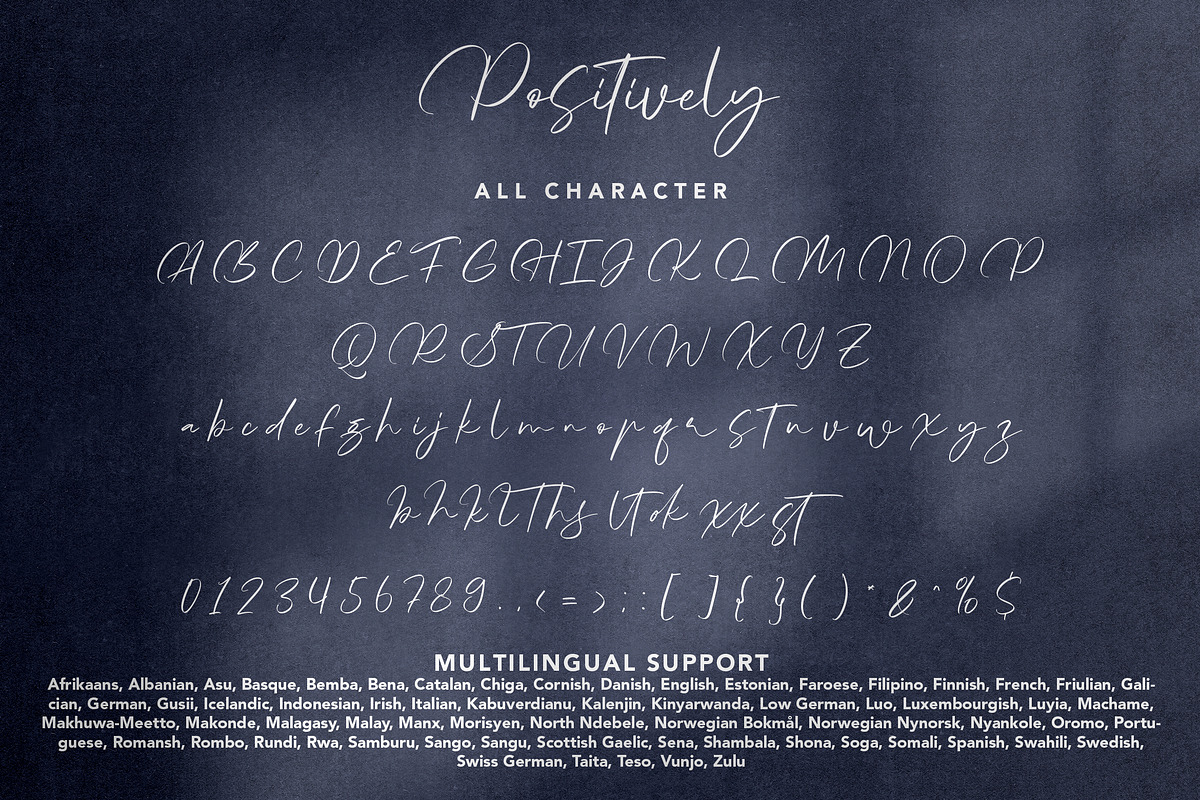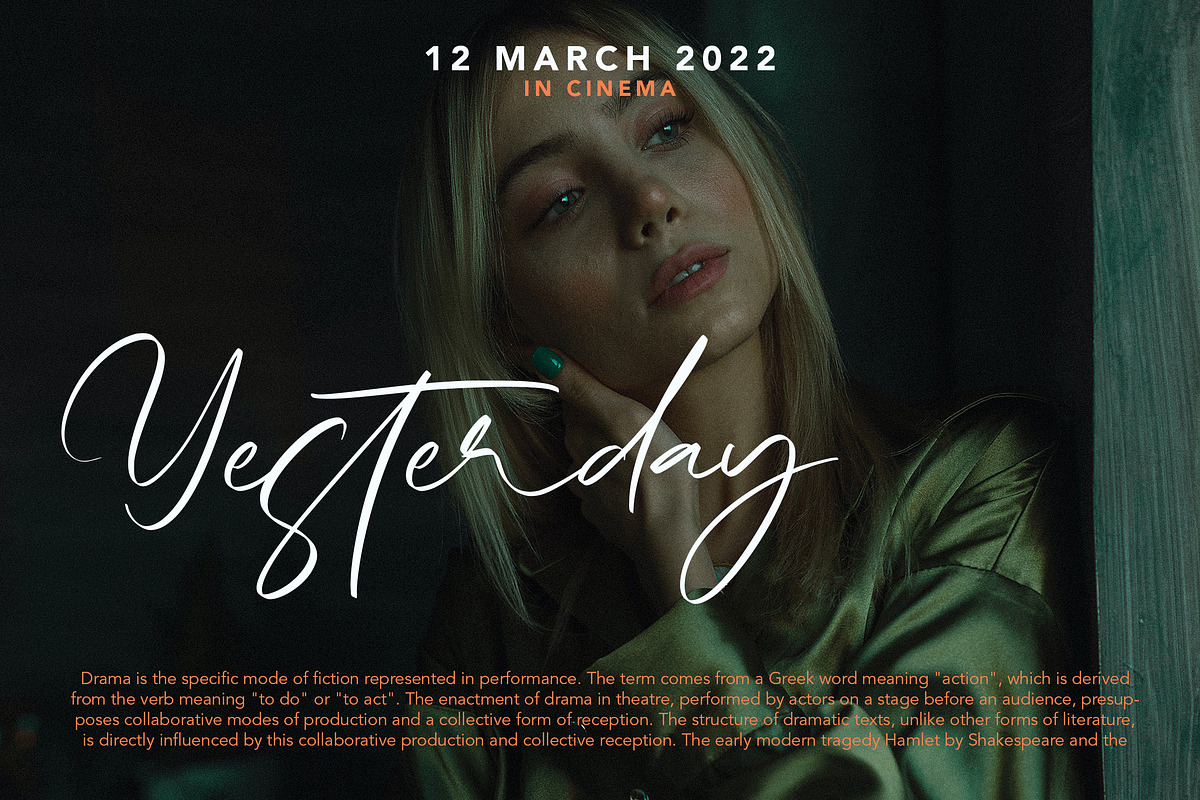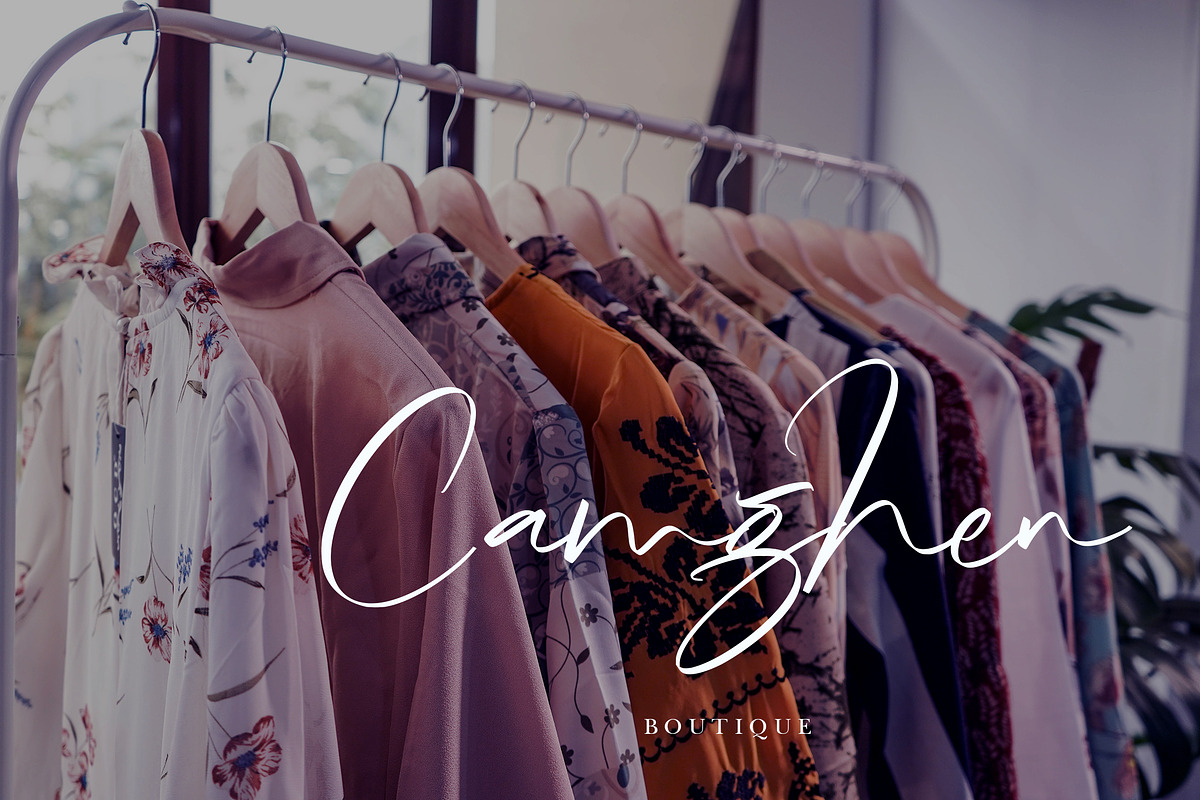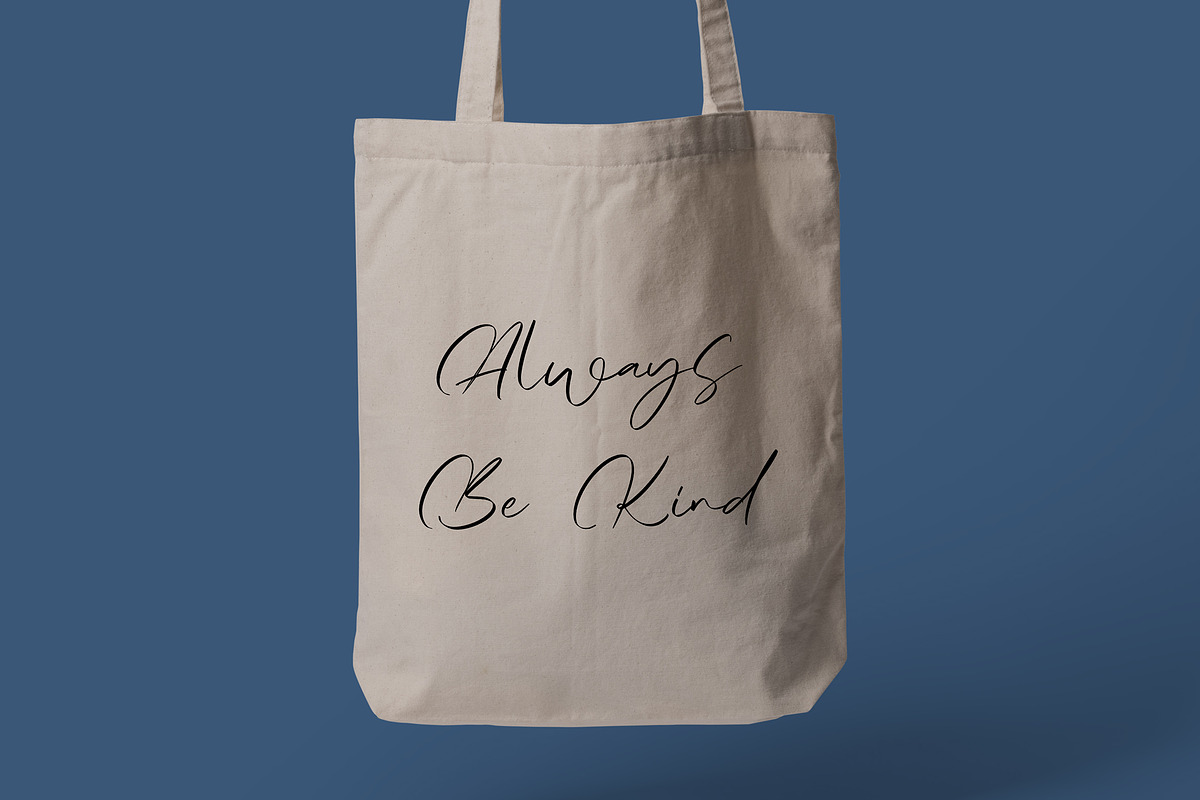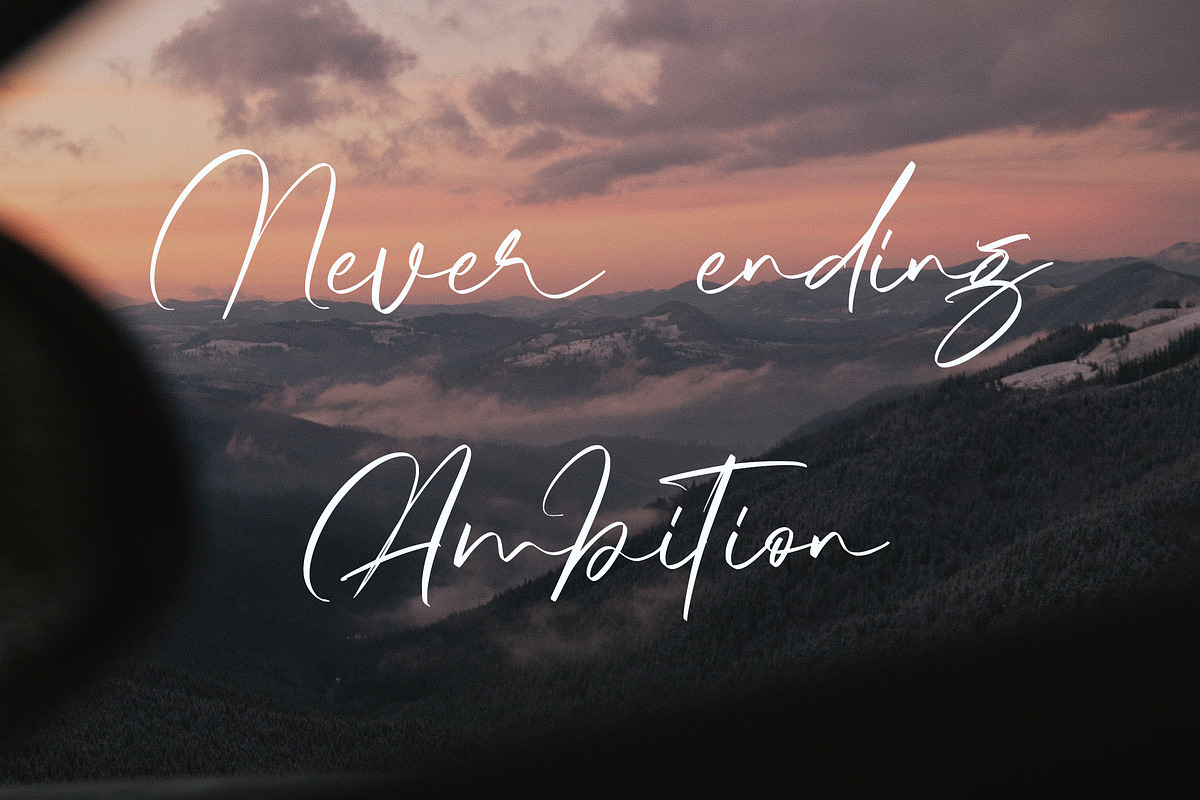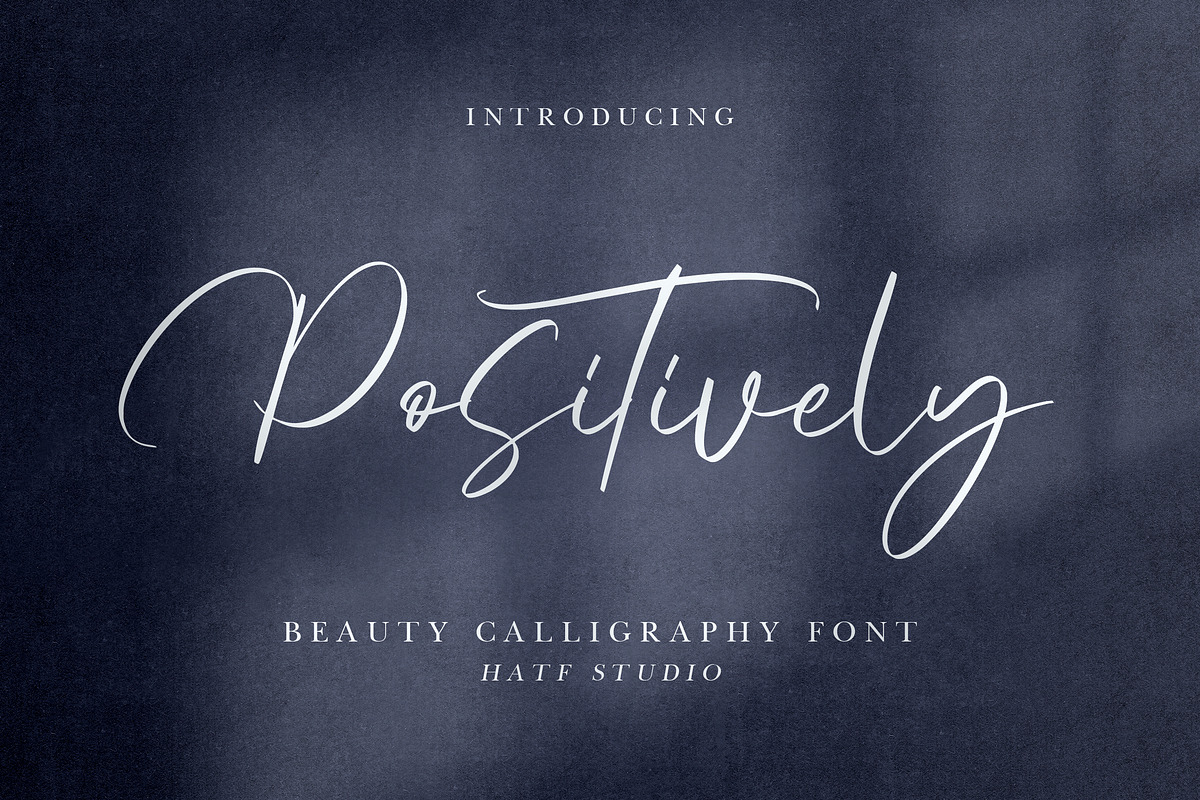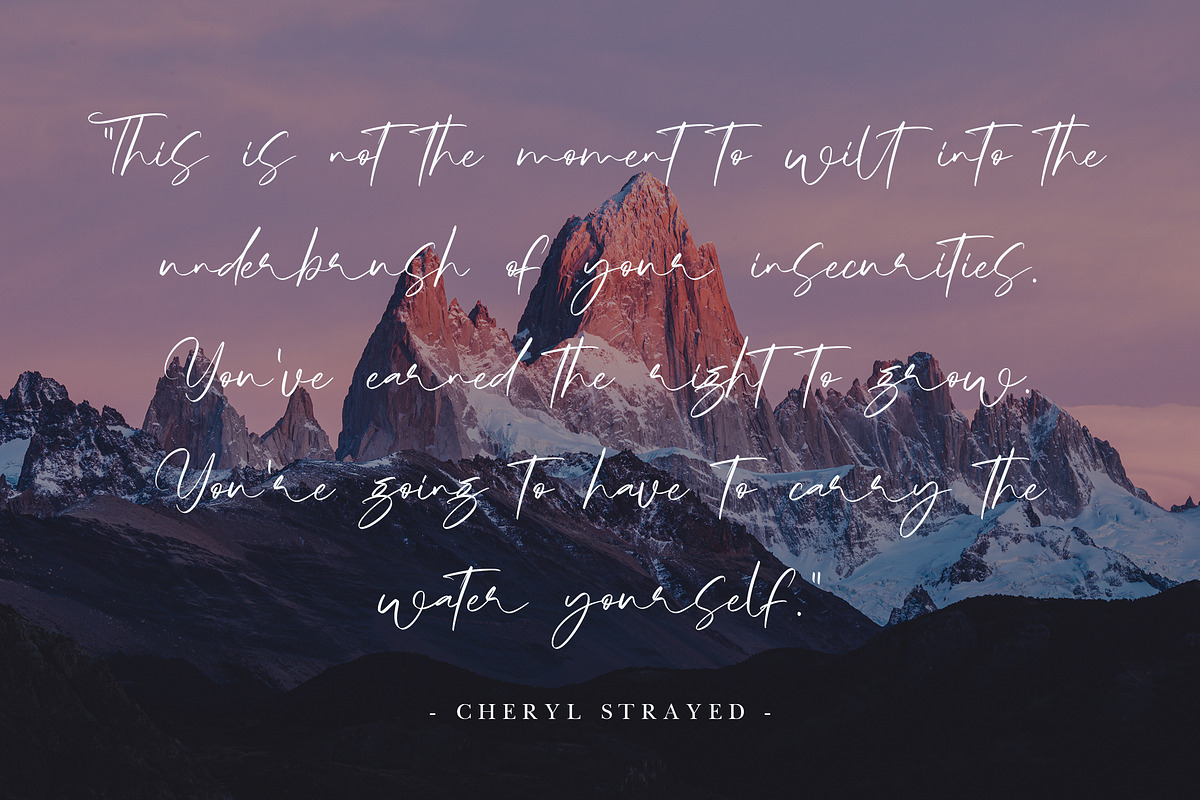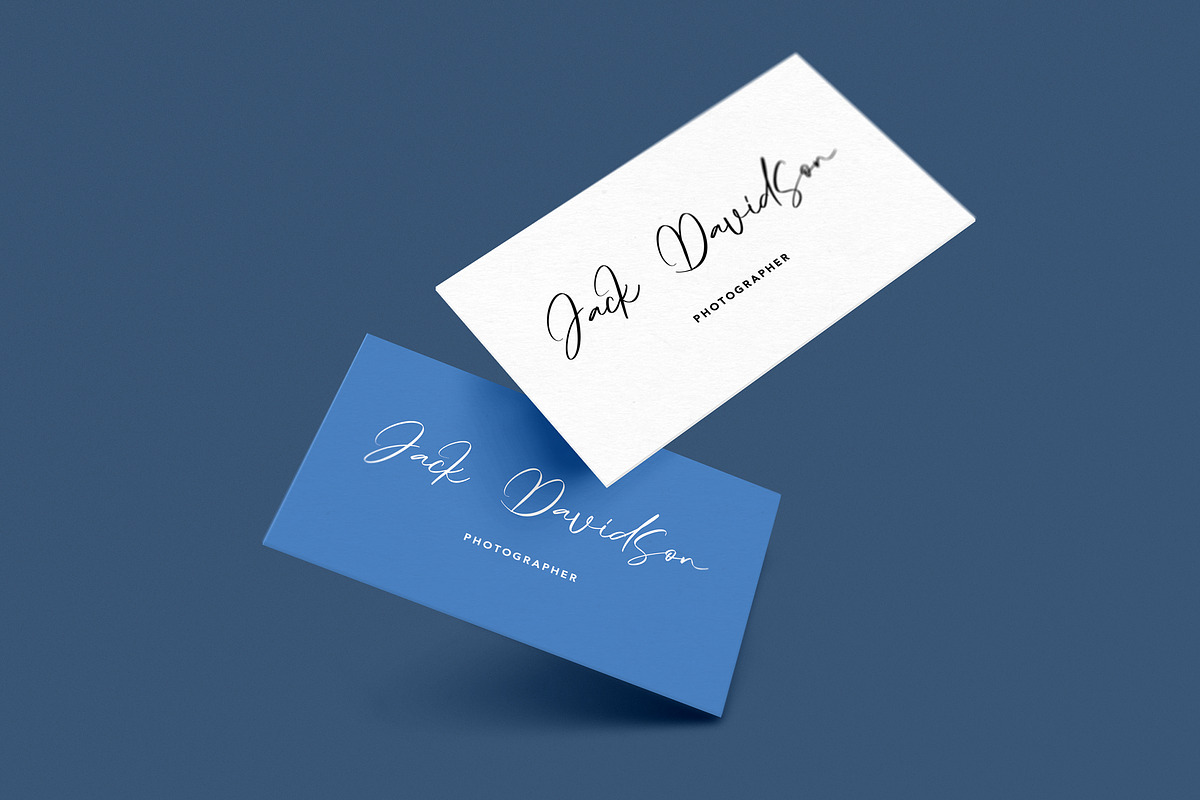
Positively
Achieve elegance and charm in every stroke with POSITIVELY, a calligraphy font that exudes beauty and harmony. Designed with a soft touch and elegant curves, this font is the perfect choice for creating stunning and memorable work.
Perfect for wedding invitations, luxury branding, special greeting cards, or social media that wants to stand out, POSITIVELY conveys a feeling of positivity and love. Each letter is designed to convey softness and warmth, making your designs captivate the hearts of anyone who sees them.
Bring a touch of elegance to your creative projects with POSITIVELY. Because genuine beauty is always worth sharing.